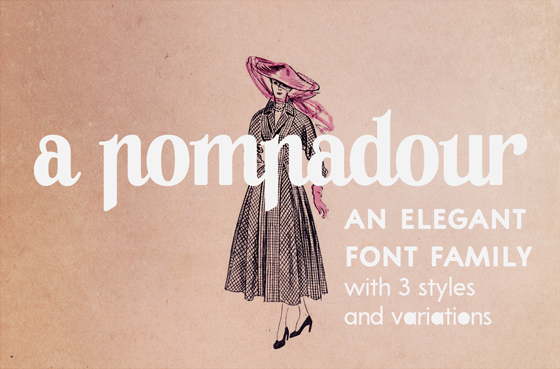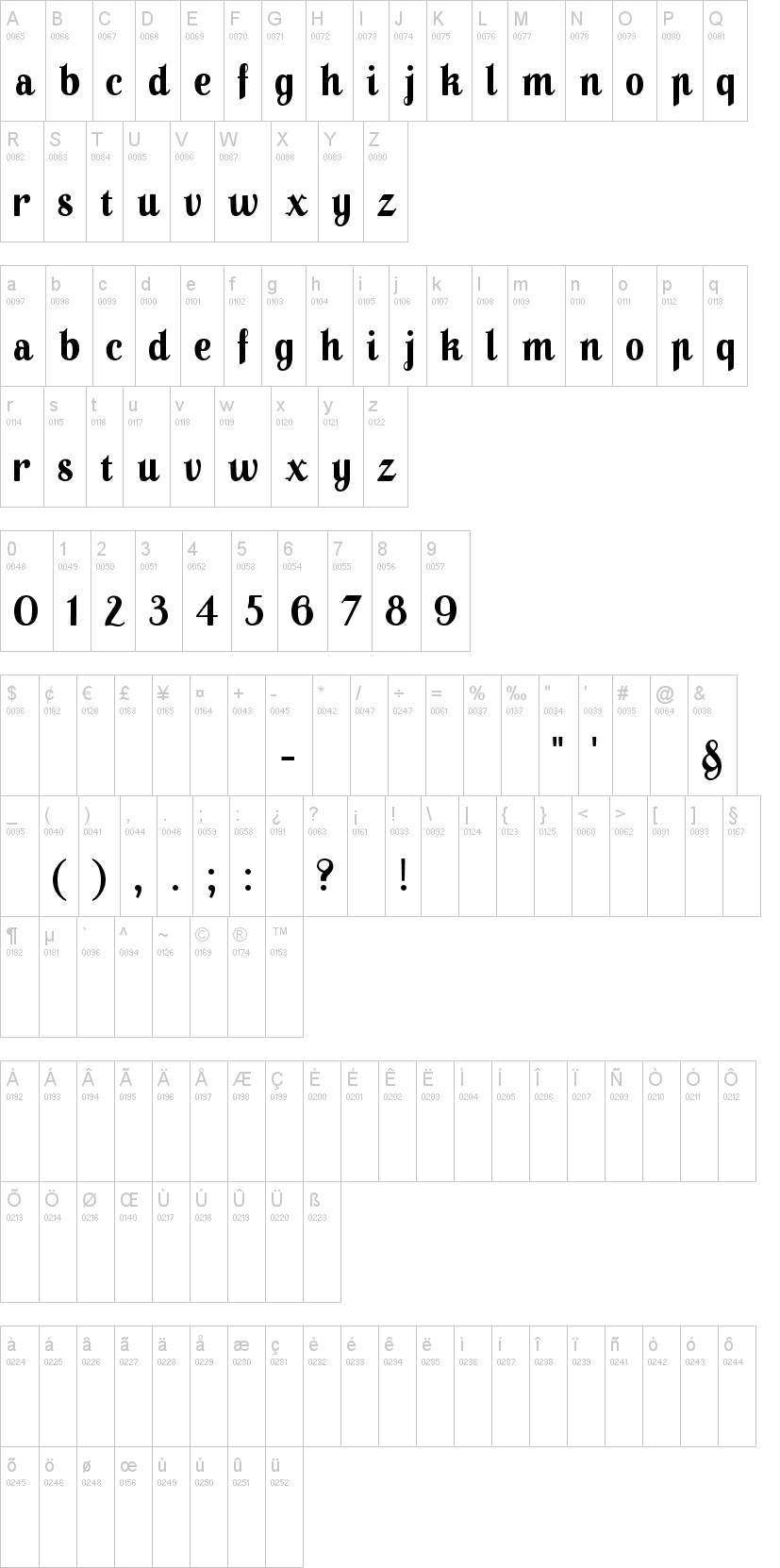
Note of the authorA Pompadour is an elegant retro font family, in two styles, with:
A-Z, a-z, 0-9, accents, punctuation and symbols
Ligatures
Small Caps
Swashes
Extra version of the font: filled